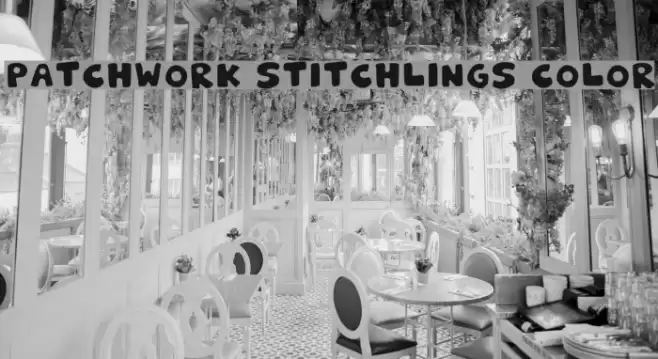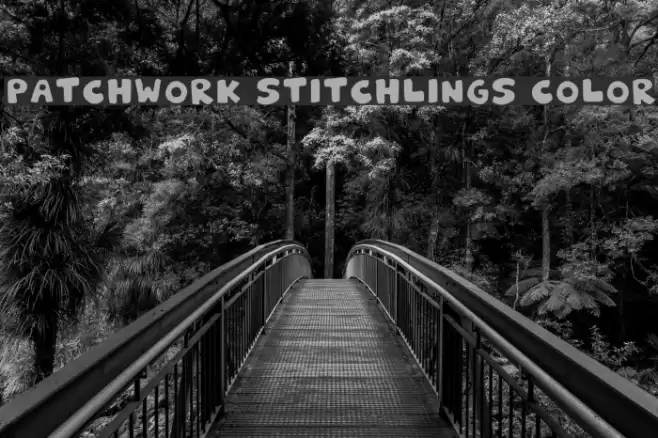
Patchwork Stitchlings Color Font
Patchwork Stitchlings Color Description
This playful and whimsical font features bold, rounded characters with a handcrafted appearance. Each letter has a unique, slightly irregular shape, giving it a stitched or patched look, reminiscent of hand-sewn crafts. The font's thick strokes and rounded edges create a friendly and approachable feel, making it ideal for creative and informal projects. The numbers and special characters maintain the same playful style, ensuring consistency across all text elements.
A playful, handcrafted font with bold, rounded characters and a stitched appearance from Decorative fonts.
- Proposed Projects: Ideal for children's books, craft projects, playful branding, and DIY-themed designs.
- Overall Style: Playful, Handcrafted